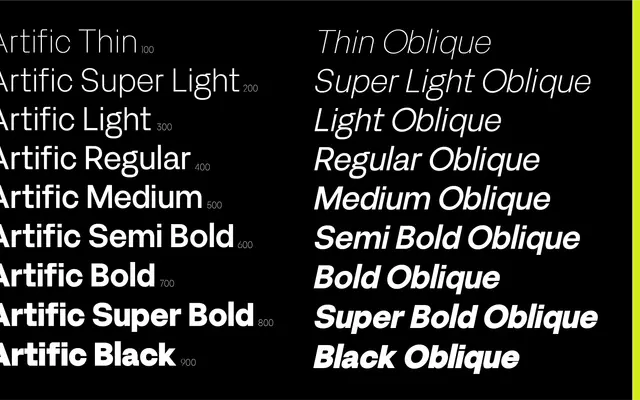
Artific
Power Type · Teguh Arief · 2024
A geometric sans-serif variable font by Teguh Arief, spanning nine weights with oblique counterparts and targeting UI and screen design.
Designed by Teguh Arief and released in September 2024, Artific runs from Thin to Black across nine weights, each paired with an oblique, totalling 18 static styles alongside a variable font with continuous weight and oblique axes. The glyph set is extensive, covering over 92 languages in Latin script plus a broad range of symbols, currency marks and UI-friendly icons. Its clean, upright construction suits interface work as readily as editorial or print contexts.
A clean, modern sans-serif with geometric sensibility, designed for UI and screen work, available as a variable font across nine weights with oblique companions.